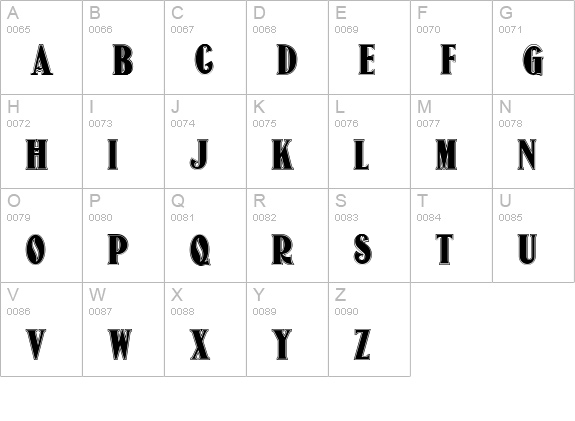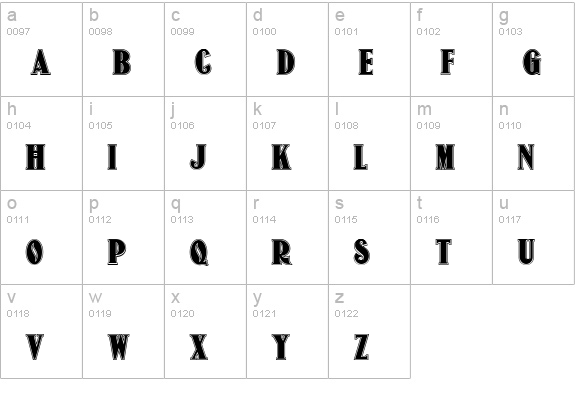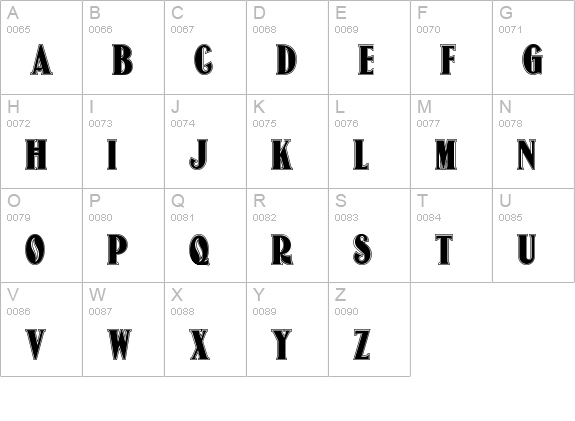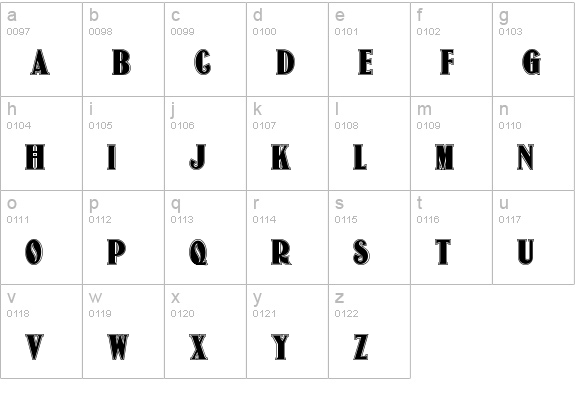
Old Gate Lane NF Font Details
Old Gate Lane NF is a vintage-inspired typeface with a timeless charm that harkens back to a bygone era. Its elegant serifs and classic letterforms exude a sense of sophistication and nostalgia, making it a perfect choice for projects that require a touch of old-world elegance. This versatile font is ideal for a wide range of design applications, from branding and packaging to editorial design and signage. Its clean lines and balanced proportions make it highly readable, while its unique character adds a touch of personality to any project. And the best part? Old Gate Lane NF is completely free to download at FontsMarket.com, making it accessible to designers of all levels. Whether you're working on a personal project or a client commission, this font is sure to add a touch of vintage flair to your designs. Download Old Gate Lane NF today and bring a touch of old-world charm to your next project.